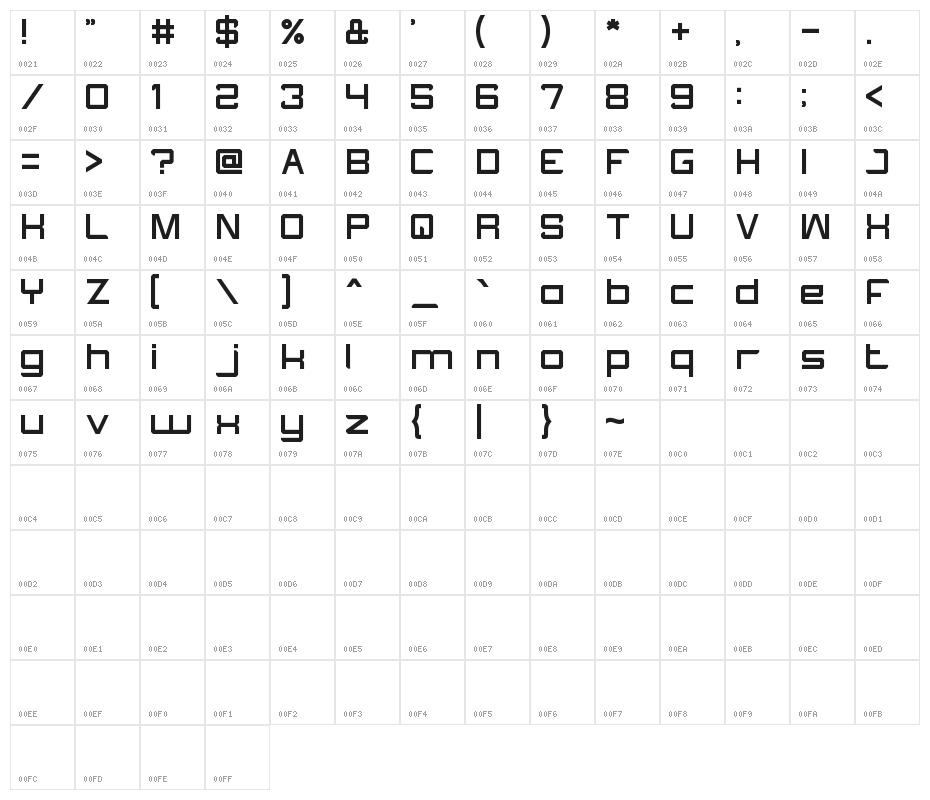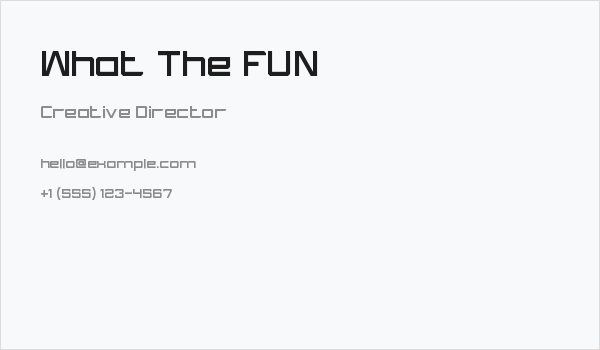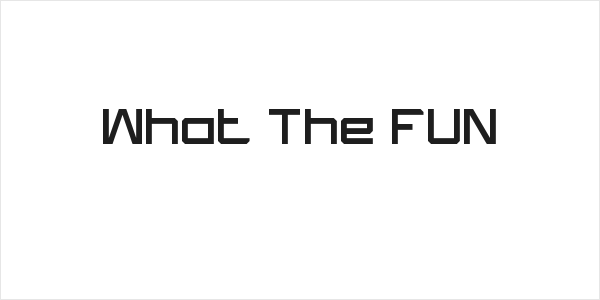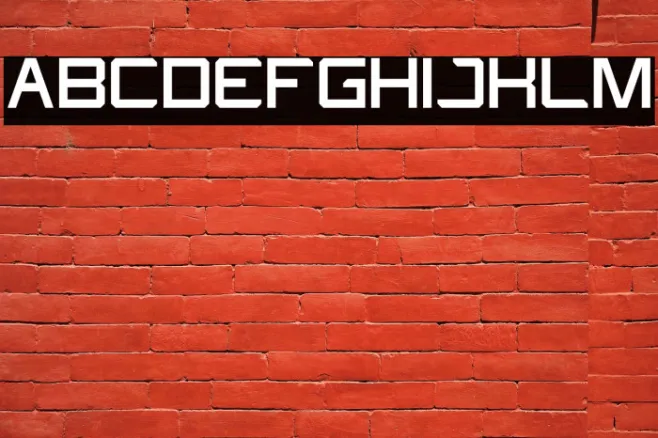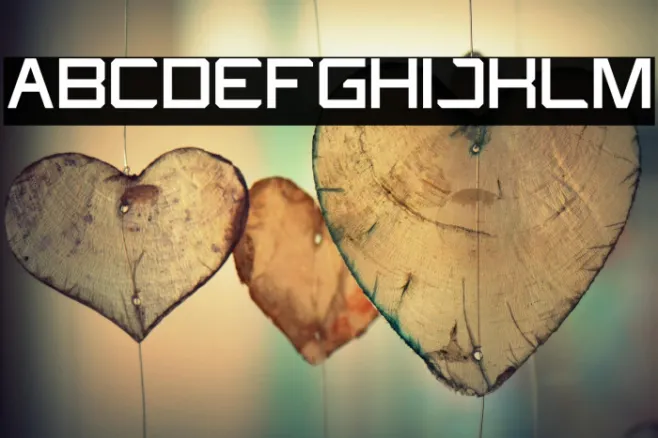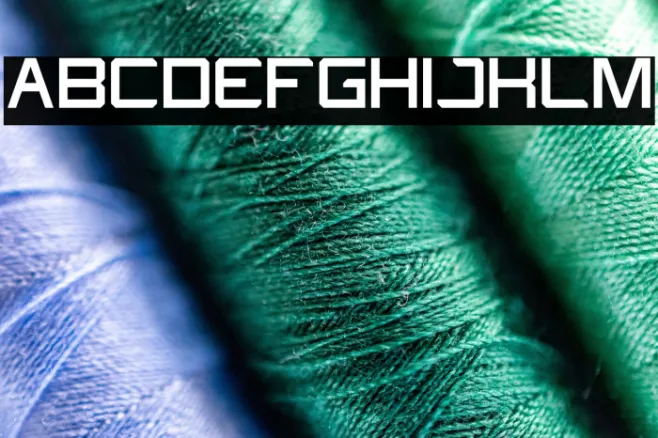
What The FUN Font
What The FUN Description
This font features a modern, geometric design with a distinct block-like structure. Each character is crafted with precision, showcasing sharp angles and a uniform thickness throughout. The uppercase letters are bold and commanding, while the lowercase letters maintain a consistent style, offering a cohesive look across different text sizes. The numerals are equally robust, ensuring clarity and readability. Special characters are designed to match the overall aesthetic, making this font versatile for various applications. Its clean lines and structured form make it ideal for contemporary design projects.
| Use Case | Headlines, Logos, Digital Interfaces |
| Proposed Projects | Ideal for branding, digital interfaces, posters, and modern editorial layouts. |